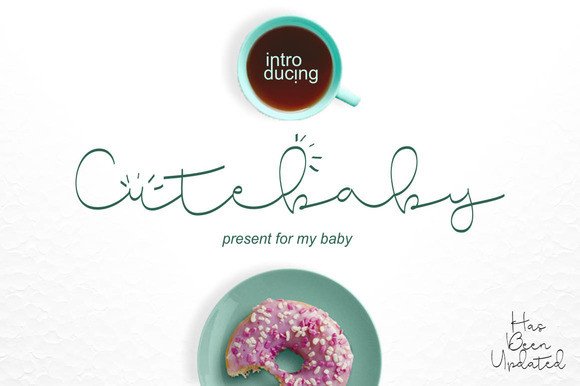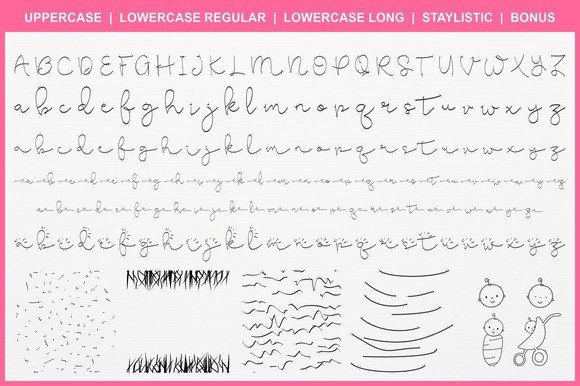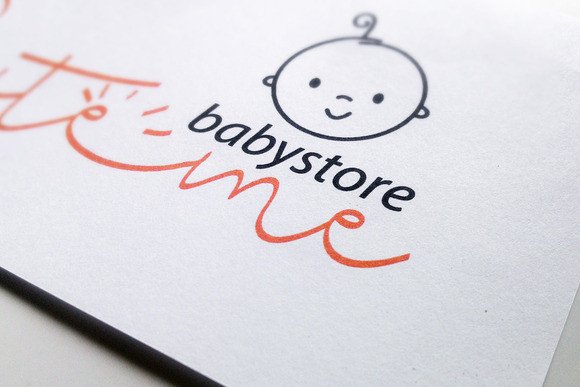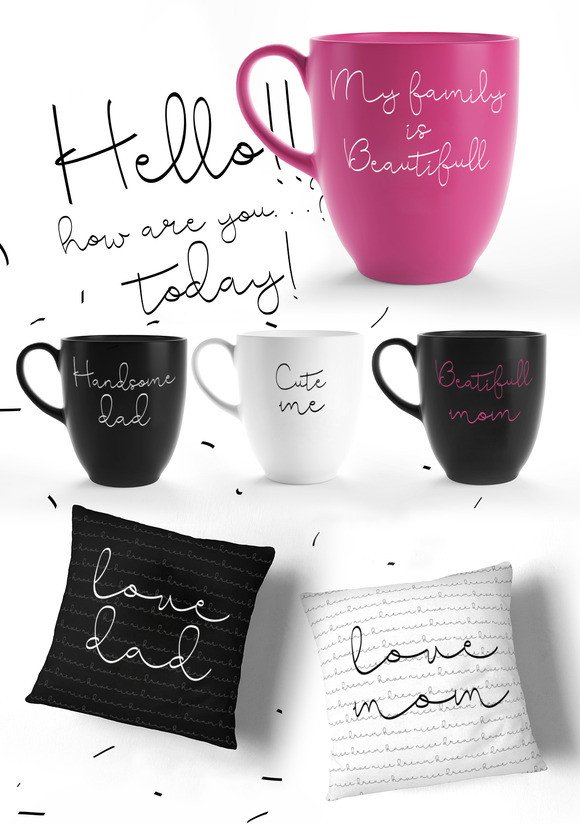
Cute Baby Font
About Cute Baby Font
Cute baby is a modern, elegant handwritten script font. Specially made for newborn baby’s but can be used for wedding invitations, signatures, T-shirts, posters, and anything else you can imagine with this elegant writing as well.